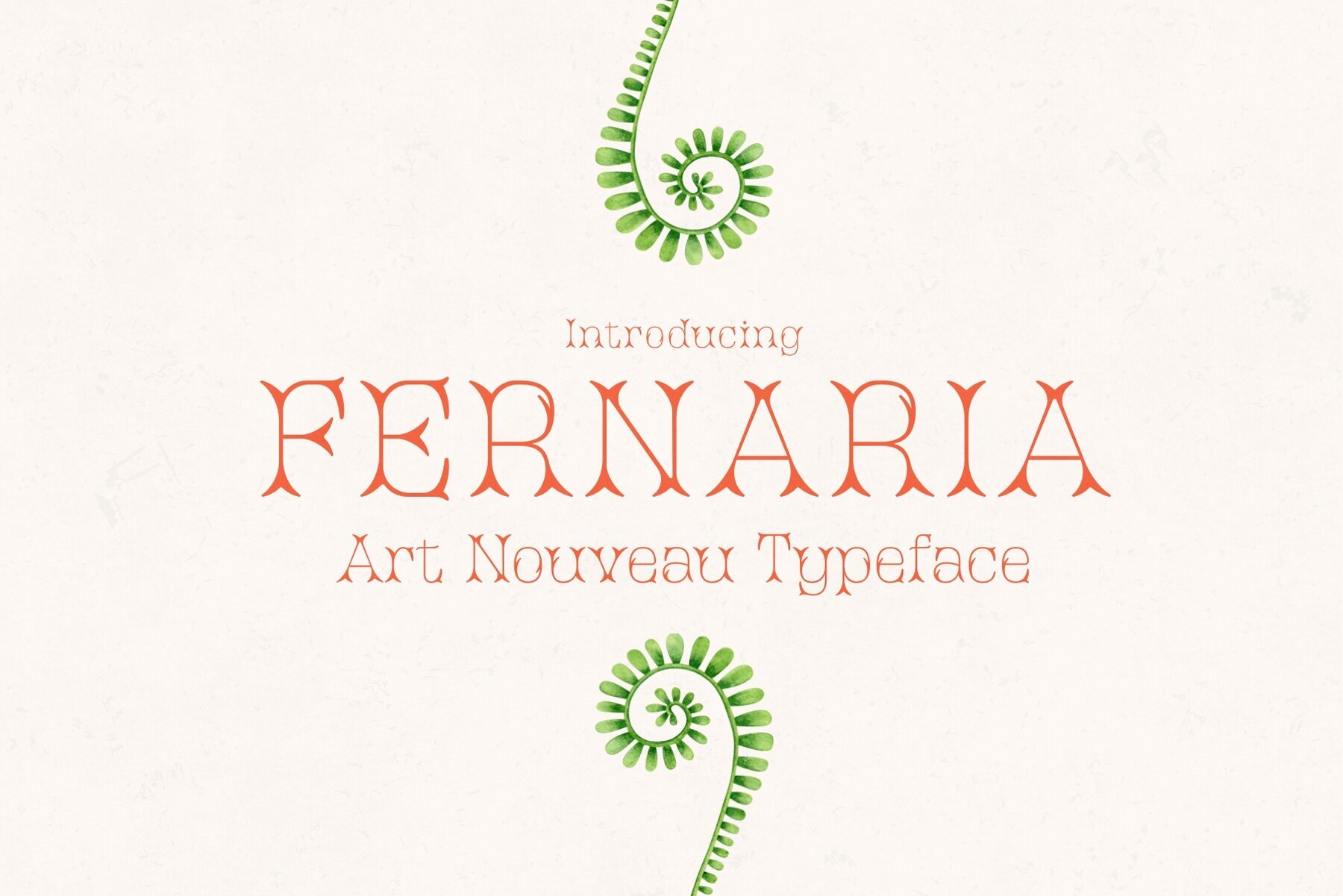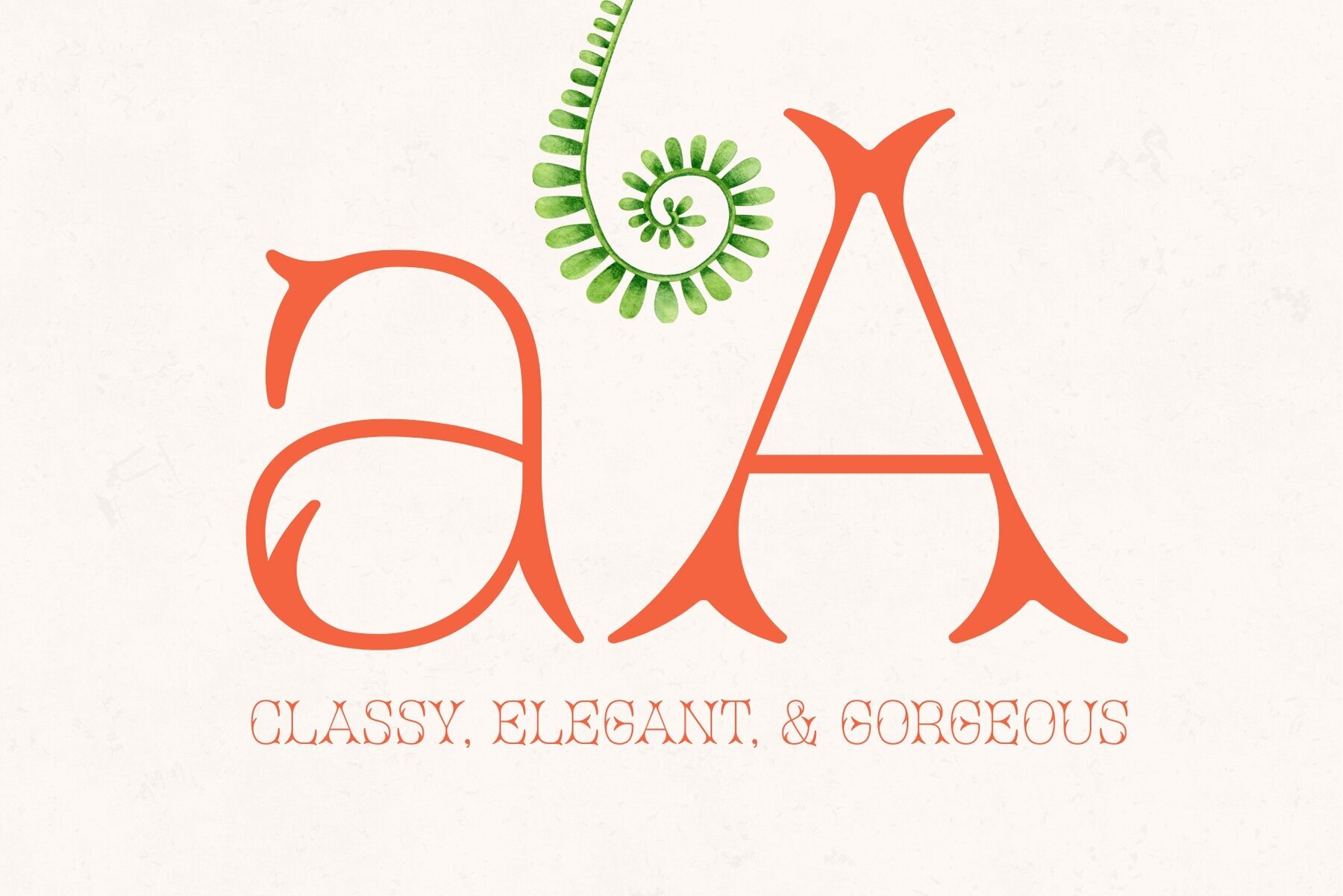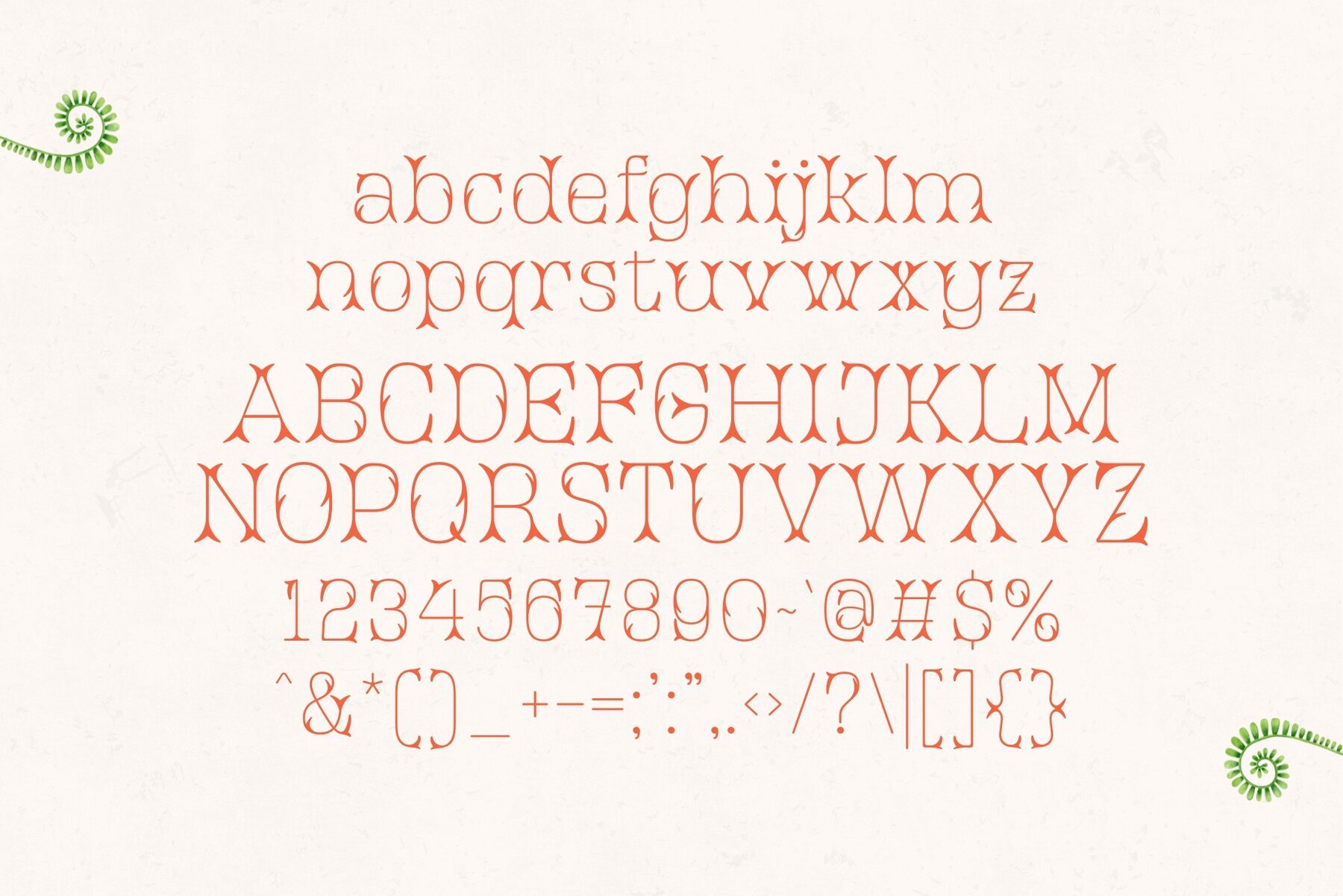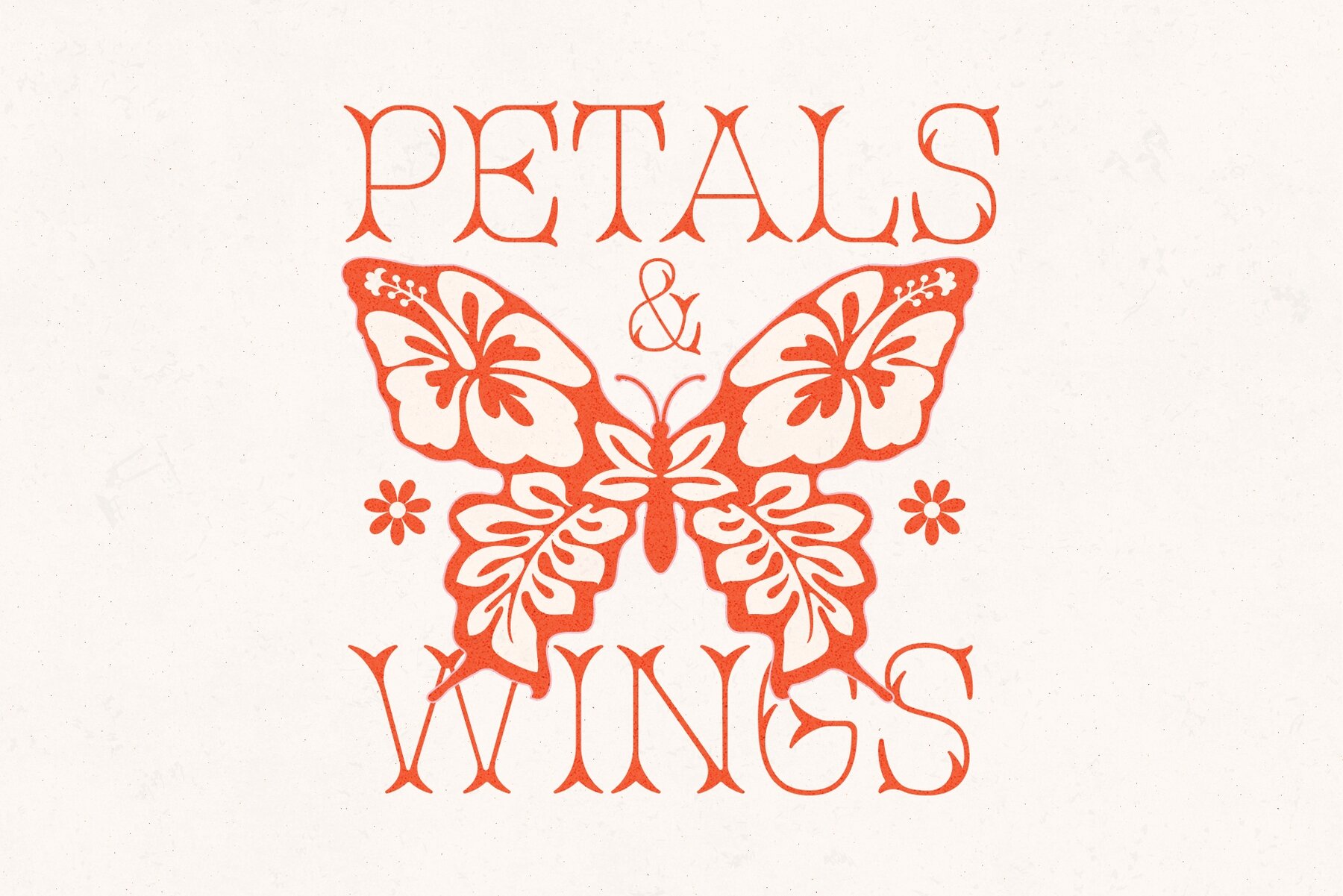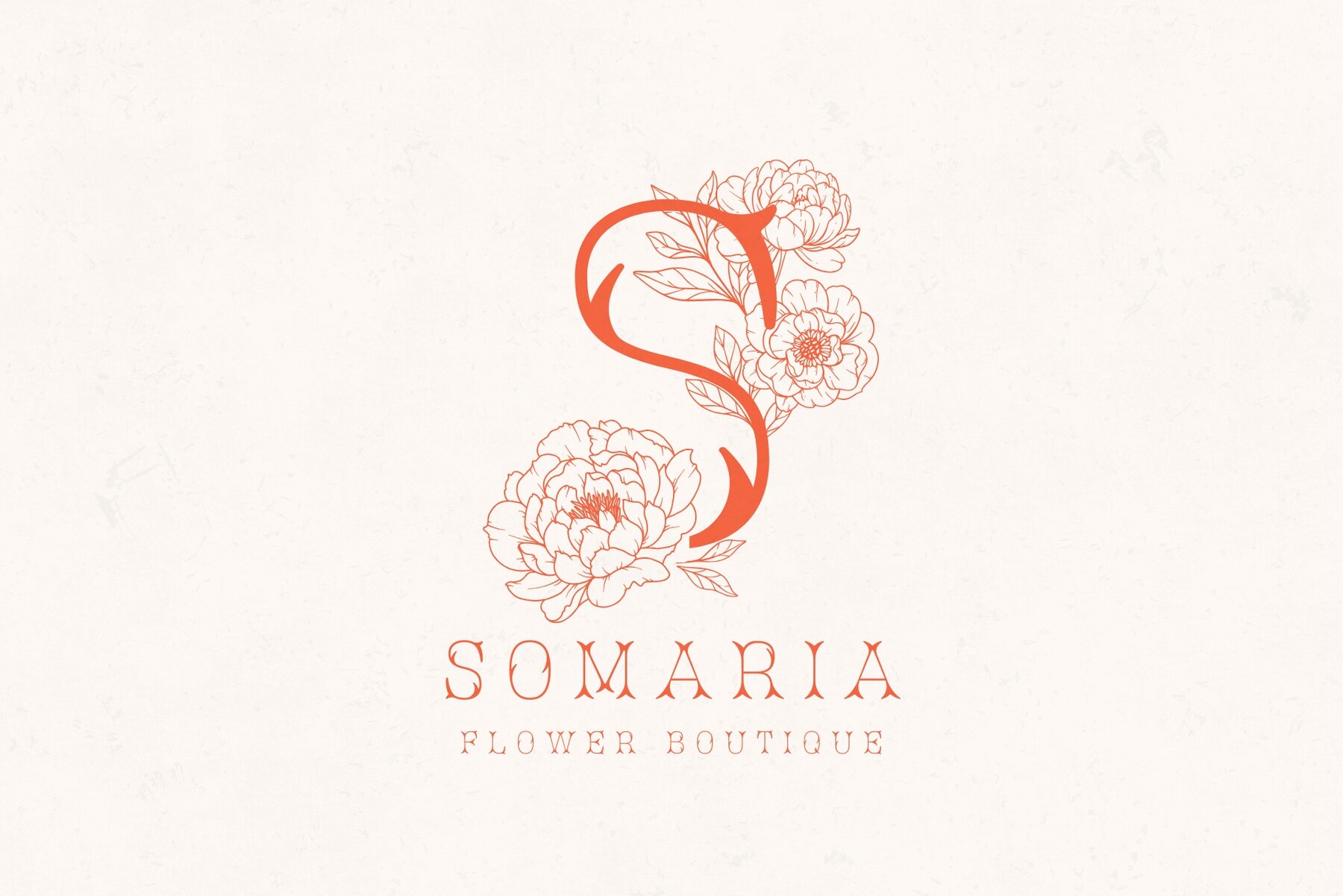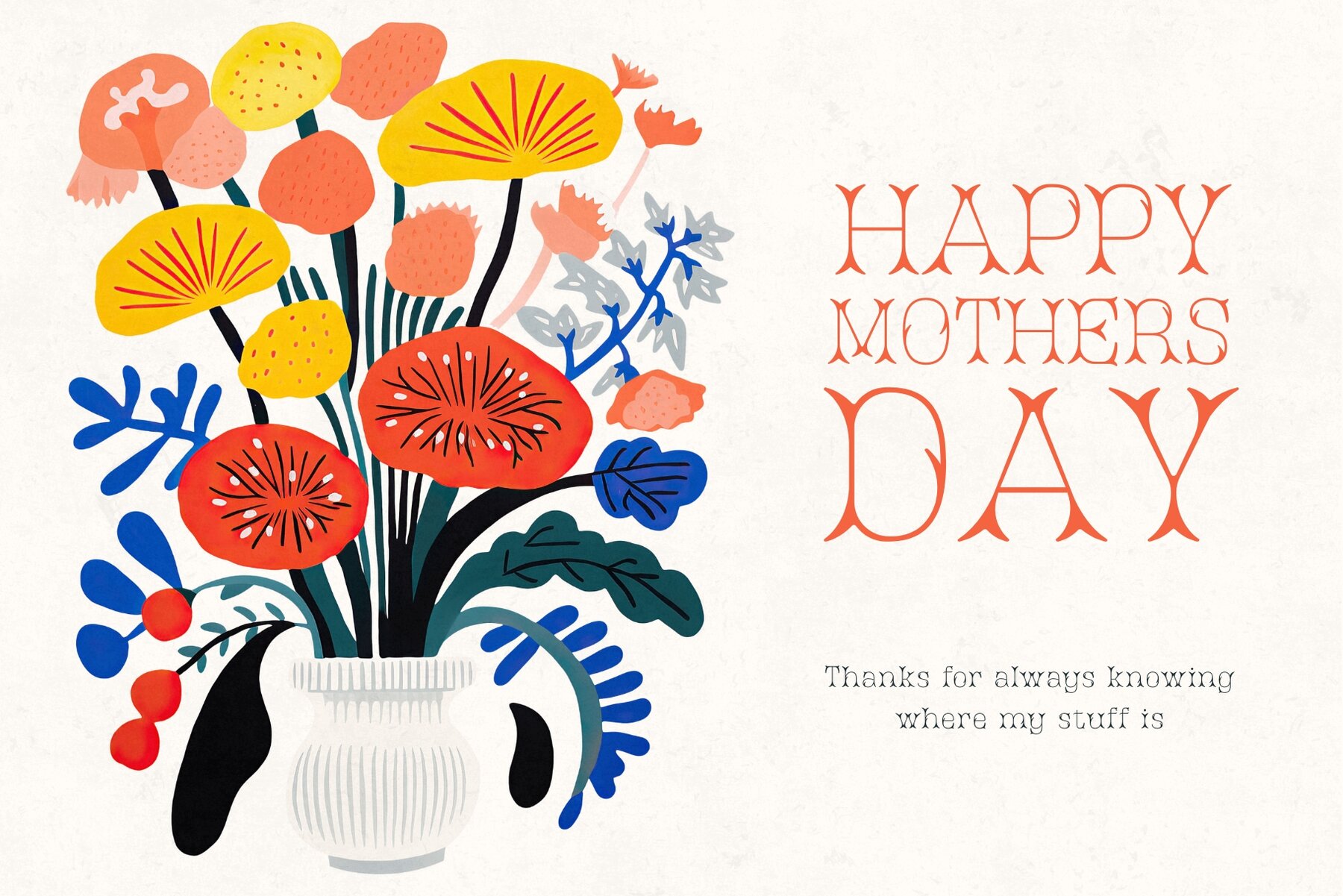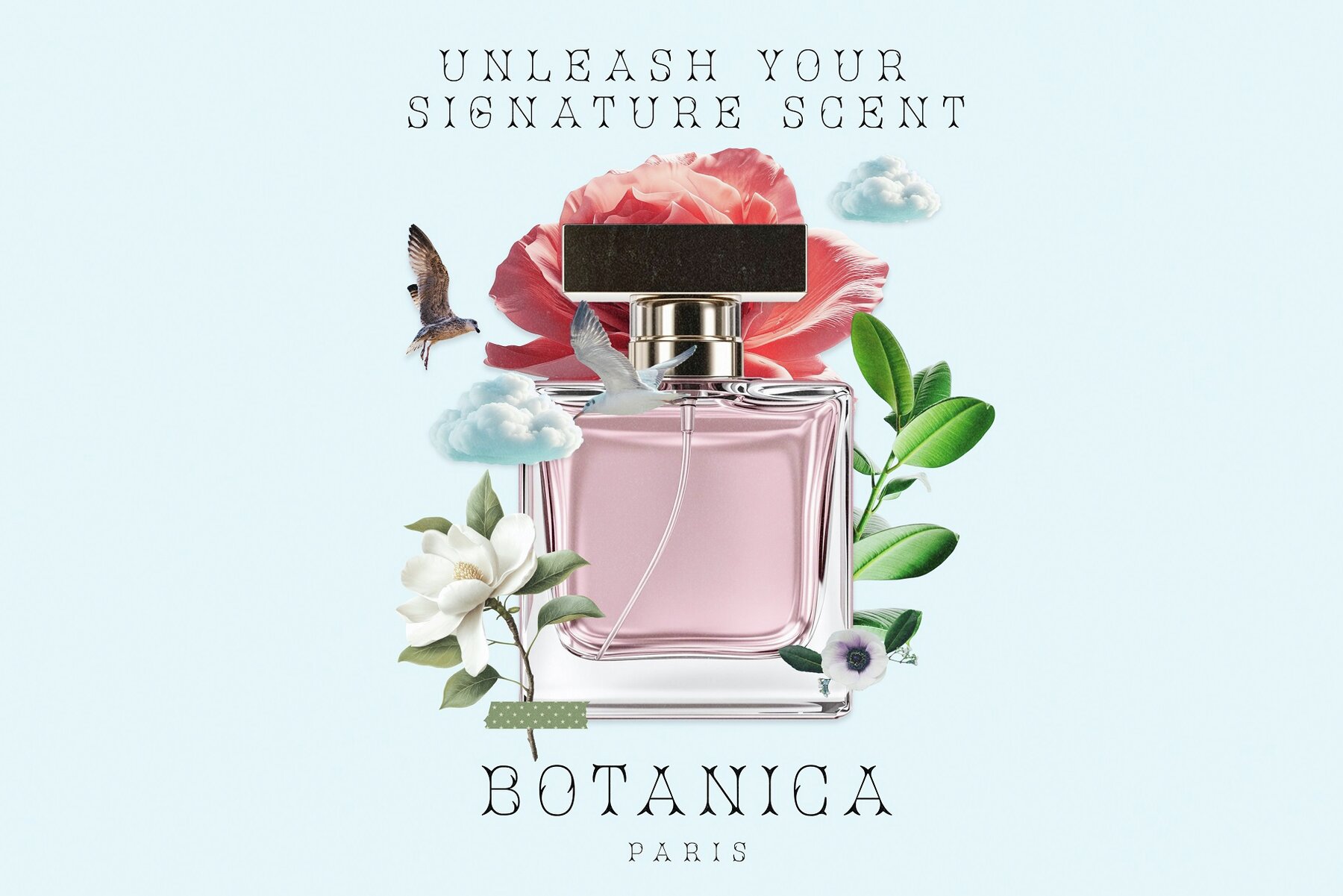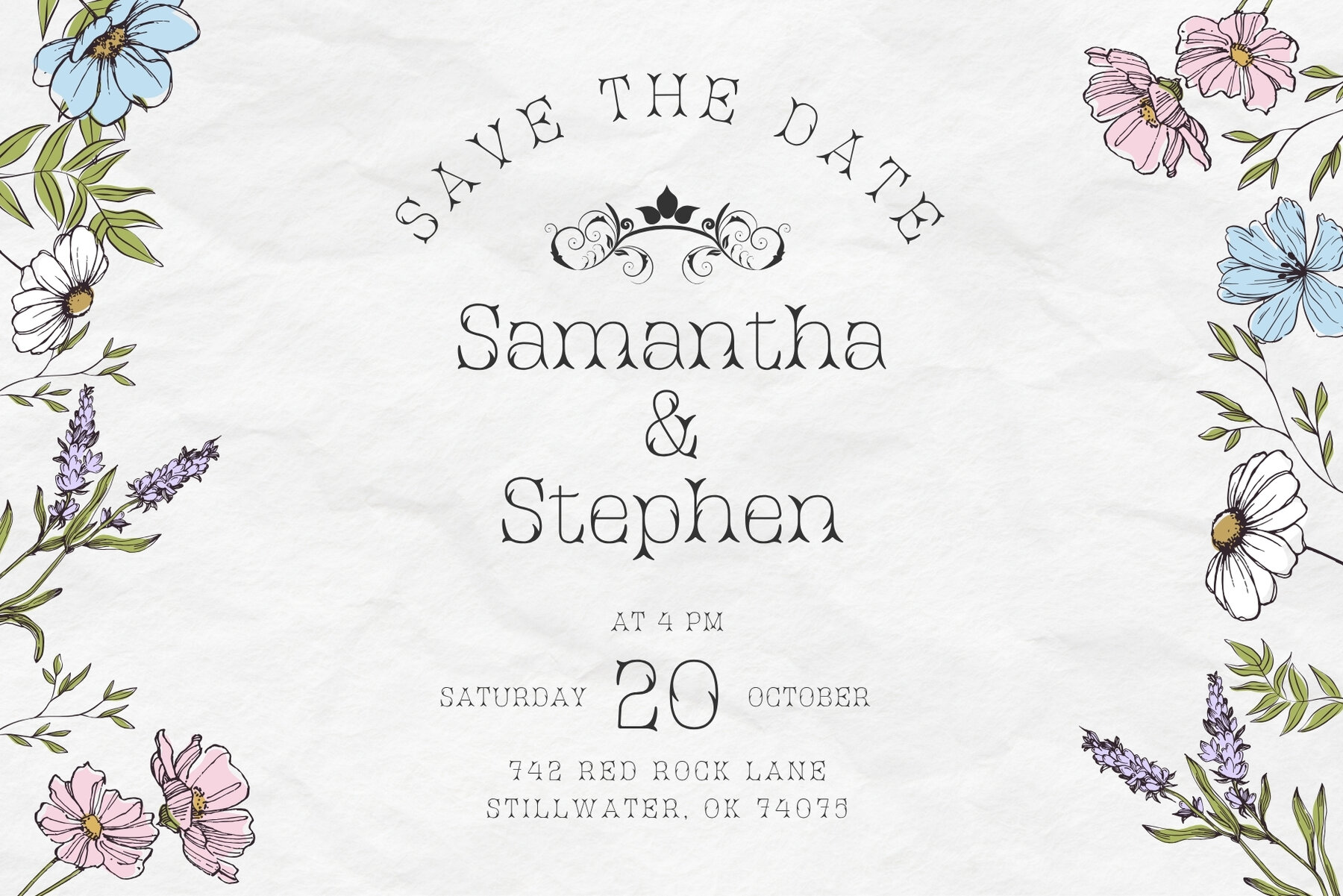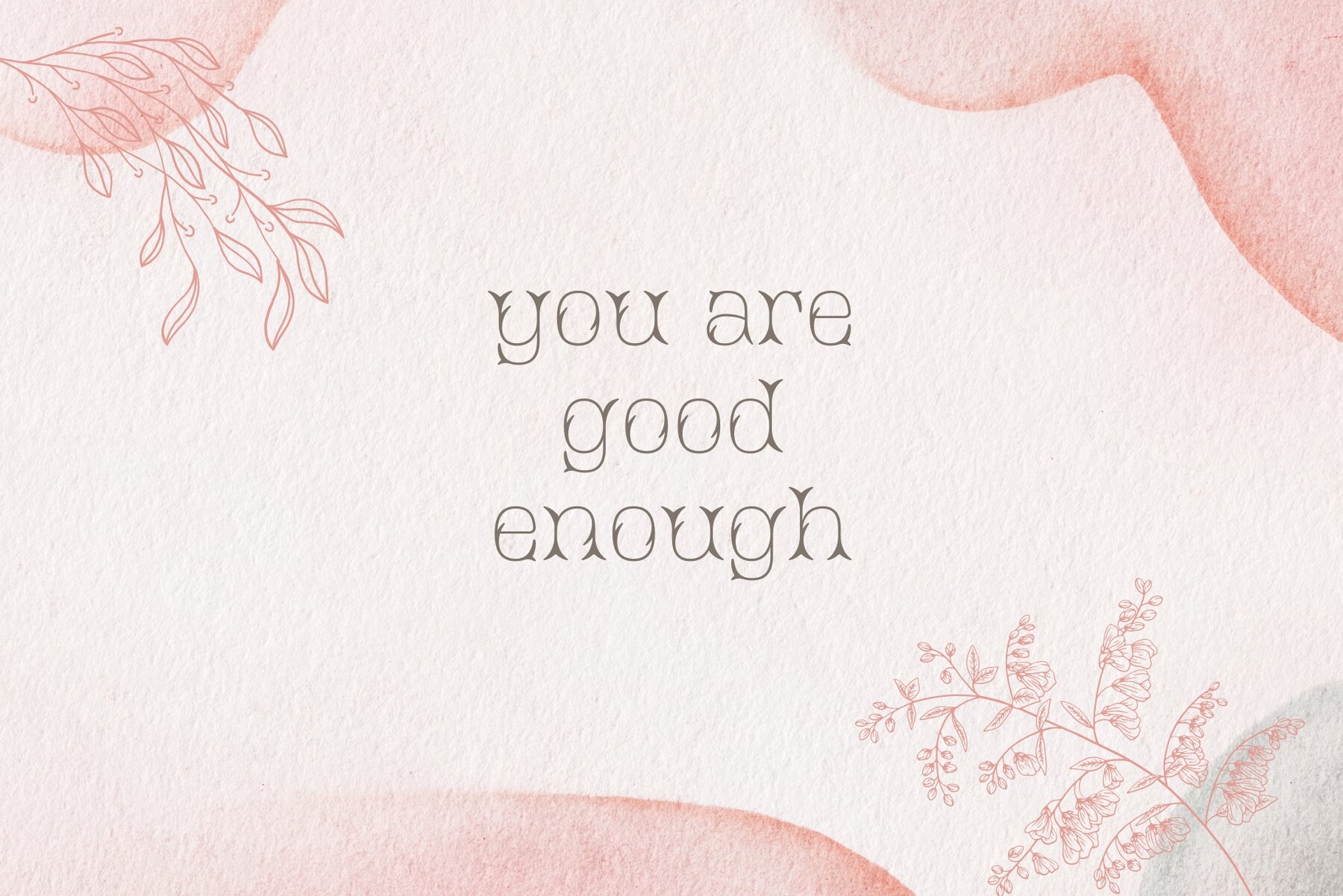
Fernaria Font
Fernaria
Introducing Fernaria, a remarkable serif typeface that seamlessly blends vintage charm with modern sophistication. Inspired by the romantic flow of Art Nouveau, Fernaria's graceful curves and delicate strokes create an elegant, refined aesthetic. Every letter is thoughtfully crafted to offer beauty and versatility, making it an ideal choice for brands that seek distinction, social media designs that stand out, and captivating editorial or poster layouts. Fernaria is more than just a typeface—it's a statement of timeless elegance, artistry, and refinement. Enhance your designs with a touch of enchantment and let your words speak with grace.Fernaria Typeface: Where Vintage Meets Modern